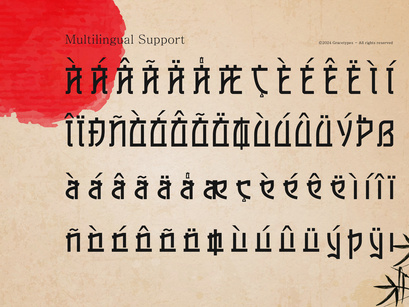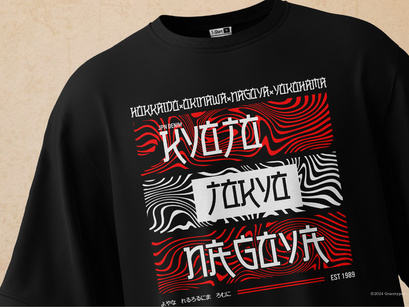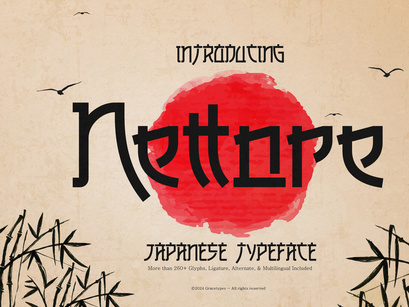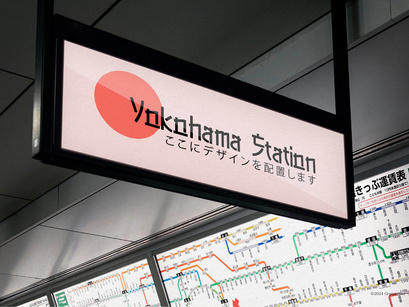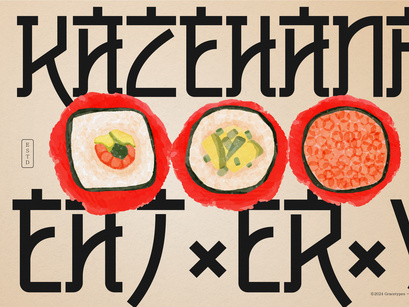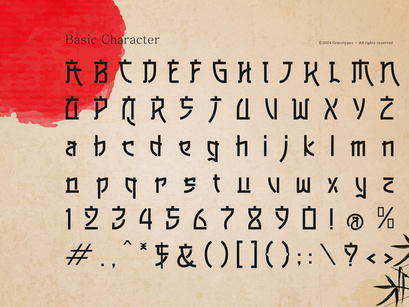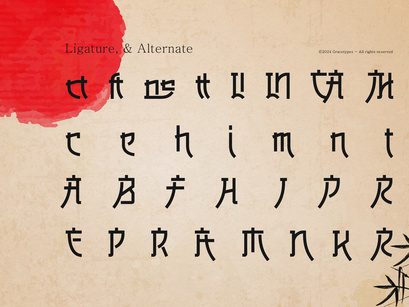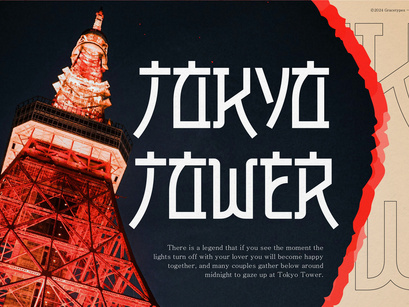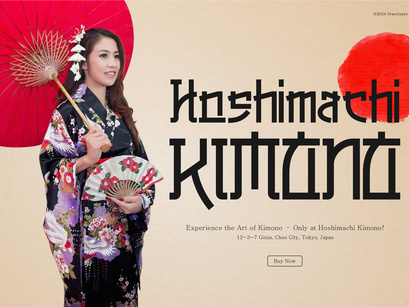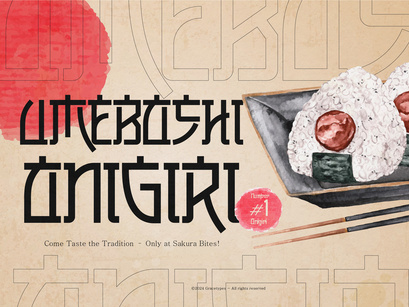
Nettore | Japanese Typeface, from Gracetypestudio, suitable for any projects such as: logos, branding projects, homeware designs, product packaging, mugs, quotes, posters, shopping bags, t-shirts, book covers, name card, invitation cards, greeting cards, label, photography, watermark, special events, and all your other lovely projects that need a Japanese Typeface taste.